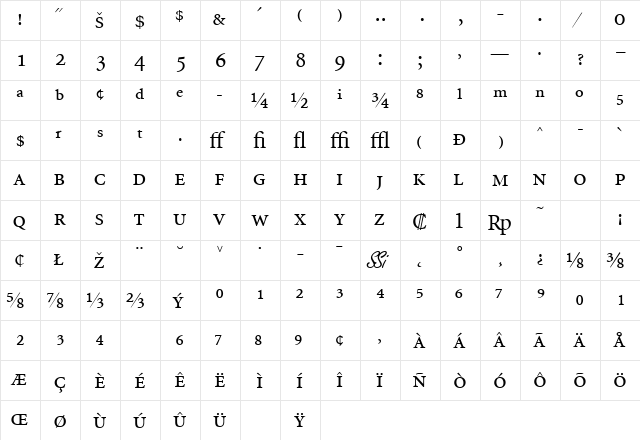
AtlantixProSSK Regular Font Preview
AtlantixProSSK Regular
AtlantixProSSK Regular Font Details
Design Context for AtlantixProSSK Typeface
AtlantixProSSK is a composed and adaptable typeface that performs quietly and consistently across a wide range of design contexts.
Pro Tip: Use AtlantixProSSK in both headline and body roles to test its range before committing to a single application.